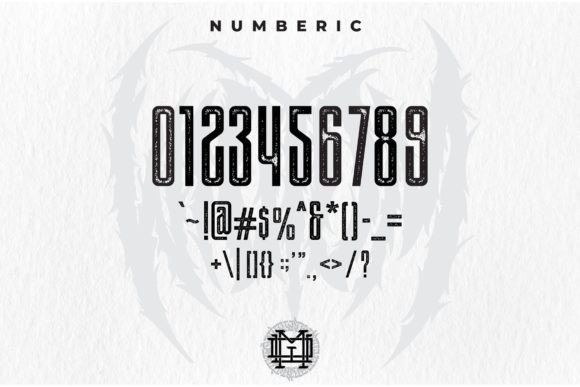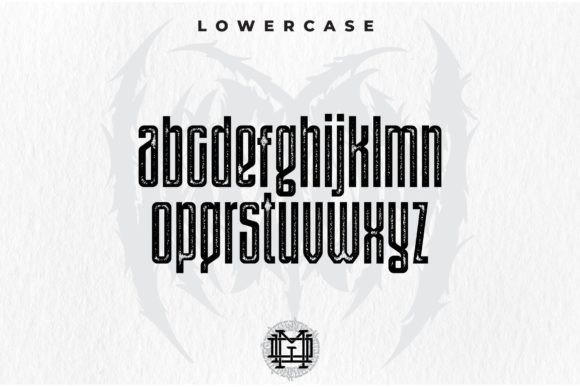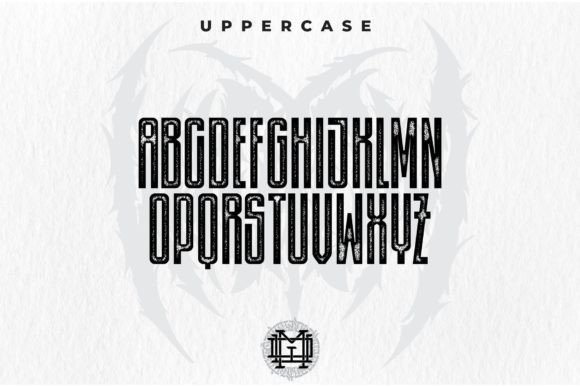
Introducing Belangsak Font: Adding a Bold and Fun Twist to Your Designs
In the world of typography, fonts play a crucial role in conveying the tone and personality of a design. For designers and crafters looking to add a unique touch to their work, Belangsak Font is an exciting option to consider. This rough sans serif typeface boasts a bold and fun personality, making it perfect for projects that require a bit of flair.
What is Belangsak Font?
Belangsak Font is a distinctive typeface characterized by its rough, sans serif design. Unlike traditional fonts with smooth lines, Belangsak’s rugged texture gives it a raw, edgy feel. This font is designed to stand out and make a statement, making it ideal for designers who want to add a bit of personality to their work.
Key Features of Belangsak Font
• Bold and Fun Personality: Belangsak Font exudes a playful and energetic vibe, making it perfect for designs that require a bit of whimsy.
• Rough Sans Serif Design: The font’s rough texture gives it a unique, hand-crafted feel that’s sure to grab attention.
• Versatility: Belangsak Font can be used for a wide range of projects, from digital designs to print materials.
• Easy to Read: Despite its rough texture, Belangsak Font remains highly legible, making it suitable for use in body text and headlines.
Who Can Benefit from Using Belangsak Font?
Belangsak Font is a versatile typeface that can be used by a variety of designers and crafters, including:
• Graphic Designers: Add a bold and fun twist to your branding, advertising, and marketing materials.
• Digital Artists: Use Belangsak Font to add a unique touch to your digital art, illustrations, and graphics.
• Crafters: Perfect for crafters who want to add a personal touch to their handmade projects, such as signs, cards, and scrapbooking.
• Web Designers: Use Belangsak Font to create eye-catching headings and titles for your website or blog.
How to Use Belangsak Font Effectively
To get the most out of Belangsak Font, consider the following tips:
• Pair with Contrasting Fonts: Combine Belangsak Font with smoother fonts to create visual interest and contrast.
• Use for Headlines and Titles: Belangsak Font is perfect for grabbing attention, making it ideal for headlines and titles.
• Experiment with Colors: Try pairing Belangsak Font with bold, bright colors to amplify its playful personality.
Belangsak Font is a unique and exciting typeface that’s sure to add a bold and fun twist to your designs. With its rough sans serif design and playful personality, it’s perfect for designers and crafters looking to stand out from the crowd. Whether you’re working on a digital project or a handmade craft, Belangsak Font is a great choice for adding a bit of personality and flair.